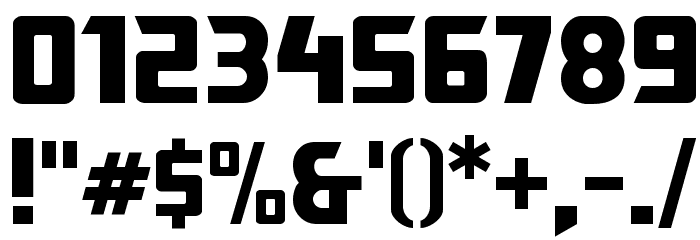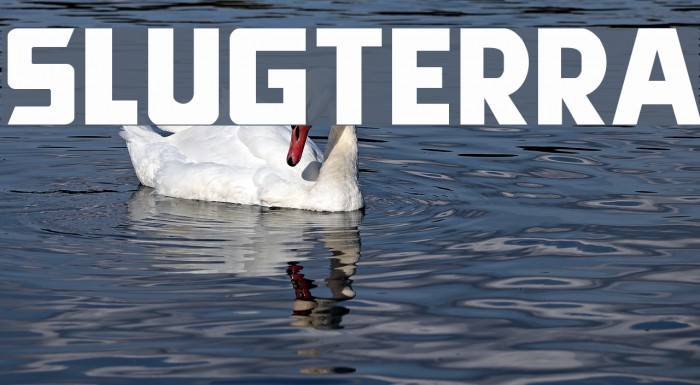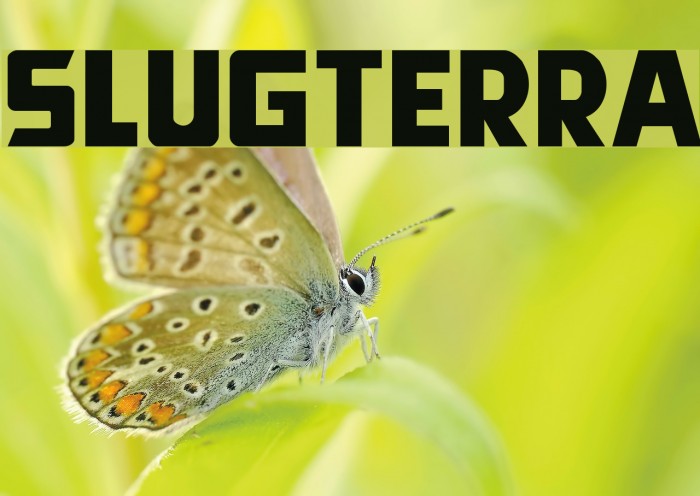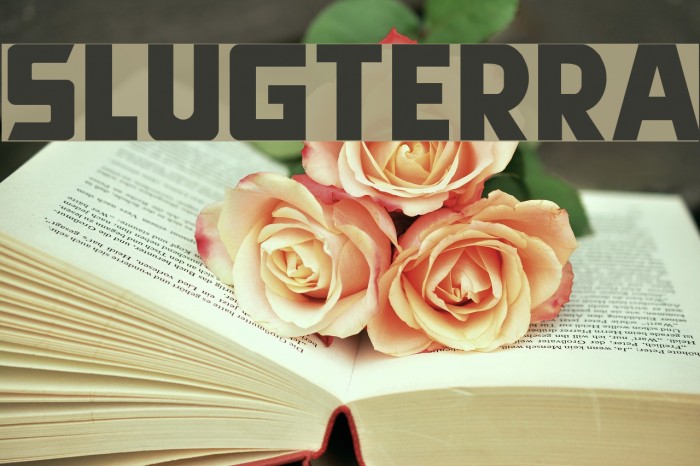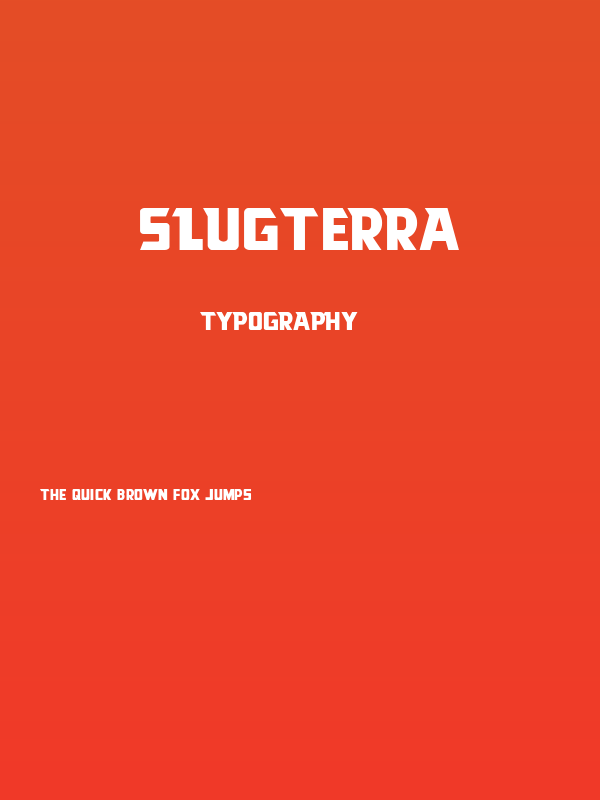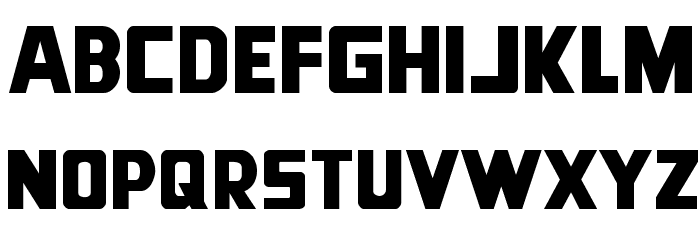
Slugterra Font
Slugterra Description
This font features a bold and robust design with strong geometric shapes and sharp angles, giving it a modern and assertive appearance. The uppercase letters are particularly striking, with a uniform height and width that create a cohesive look. The numbers and special characters maintain the same boldness, ensuring consistency across all text. The font's design is clean and straightforward, making it highly legible even at smaller sizes. Its solid structure and lack of serifs contribute to a contemporary and professional feel, suitable for a variety of applications.
Proposed ProjectsIdeal for branding, headlines, posters, and digital media where a strong, modern presence is desired.